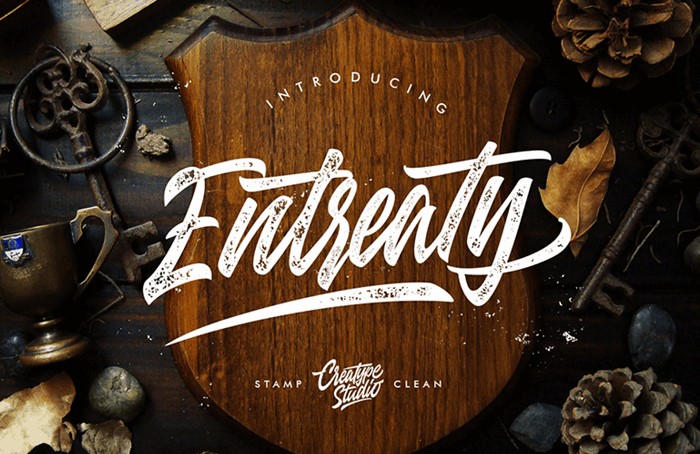
Entreaty Font
Introducing the most beautiful and useful character font that is Entreaty Font. The designer of this typeface is Creatype Studio. The typeface belongs to a Calligraphy Font family. It has TTF features.
The font has the ability to support many languages for international users. It has TrueType features and has many different stylish characters. The font’s style contains only in regular Formate. It has Uppercase Letters, Lowercase Letters, Numbers and some special symbols, and Most Useful Characters as well.
Normal with many expert designers, it provides a pinnacle-notch like-minded look for unique operations. The shape of its characters looks very rare and attractive as if it was made for a professional job.